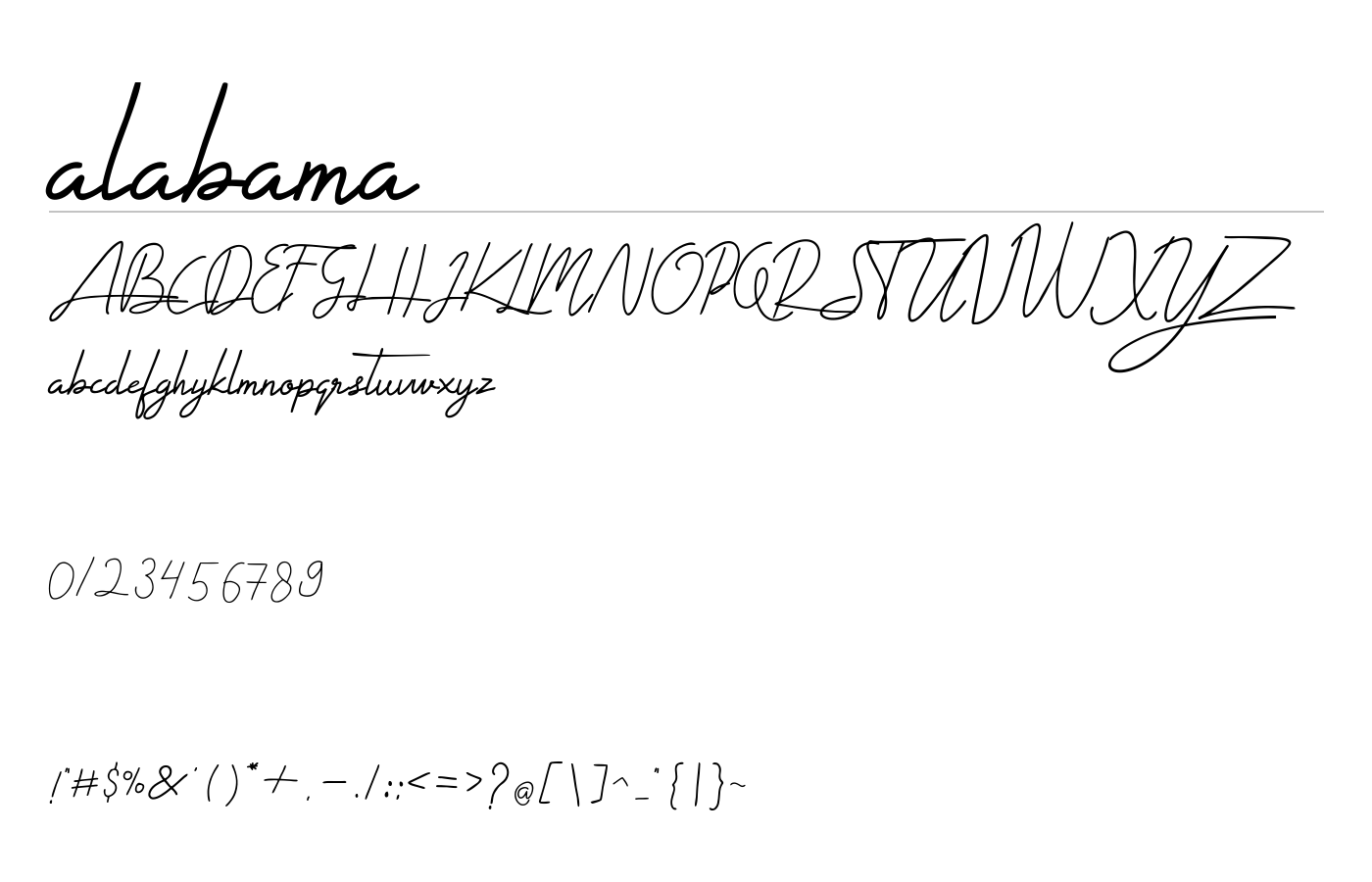
Alabama is a delicate, handwritten script font with elegant, flowing lines and a narrow, light weight that gives it a refined and sophisticated appearance. Its tall, graceful letterforms and subtle variations capture a natural, personal touch, making it ideal for invitations, branding, and designs that seek a stylish yet approachable feel. This font works wonderfully for projects that need a modern, handwritten elegance without losing readability.
alabama Font
About alabama Font